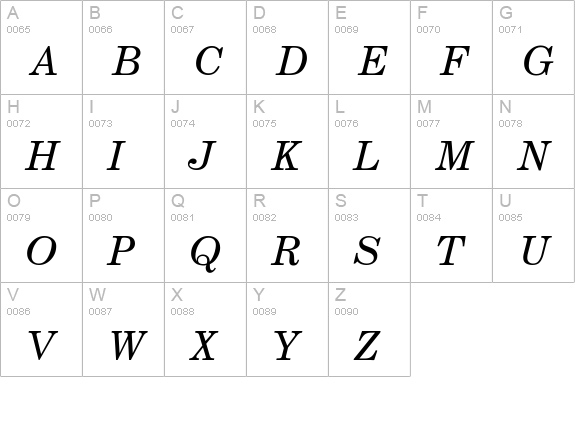
Century-Schoolbook-Normal-It Font Details
Century-Schoolbook-Normal-It is the standard, neutral variant in the Century typeface family \xE2\x80\x94 well suited to general body text, paragraphs, and standard typographic work.
Century-Schoolbook-Normal-It font is a classic serif typeface that exudes elegance and sophistication. Its graceful curves and timeless design make it a perfect choice for a wide range of projects, from formal documents to stylish invitations. The italic style adds a touch of flair to the overall look, making it stand out from other fonts. The best part about Century-Schoolbook-Normal-It font is that it is completely free to download at FontsMarket.com. This means you can add a touch of refinement to your work without having to spend a penny. Whether you're a professional designer or a casual user looking to elevate your projects, this font is a fantastic choice that won't break the bank. Don't miss out on the opportunity to enhance your designs with Century-Schoolbook-Normal-It font. Download it for free today and see the difference it can make in your work!